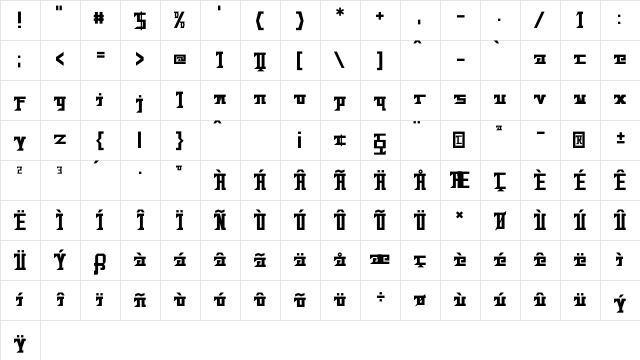
Bad Future Free Font
Bad Future
Foundry: PAW-Software Typography
Designer: HandFont2
Design Context for Bad Future
Bad Future has a distinctly futuristic character, with geometric precision and clean angles that feel at home in technology, gaming, and sci-fi contexts.